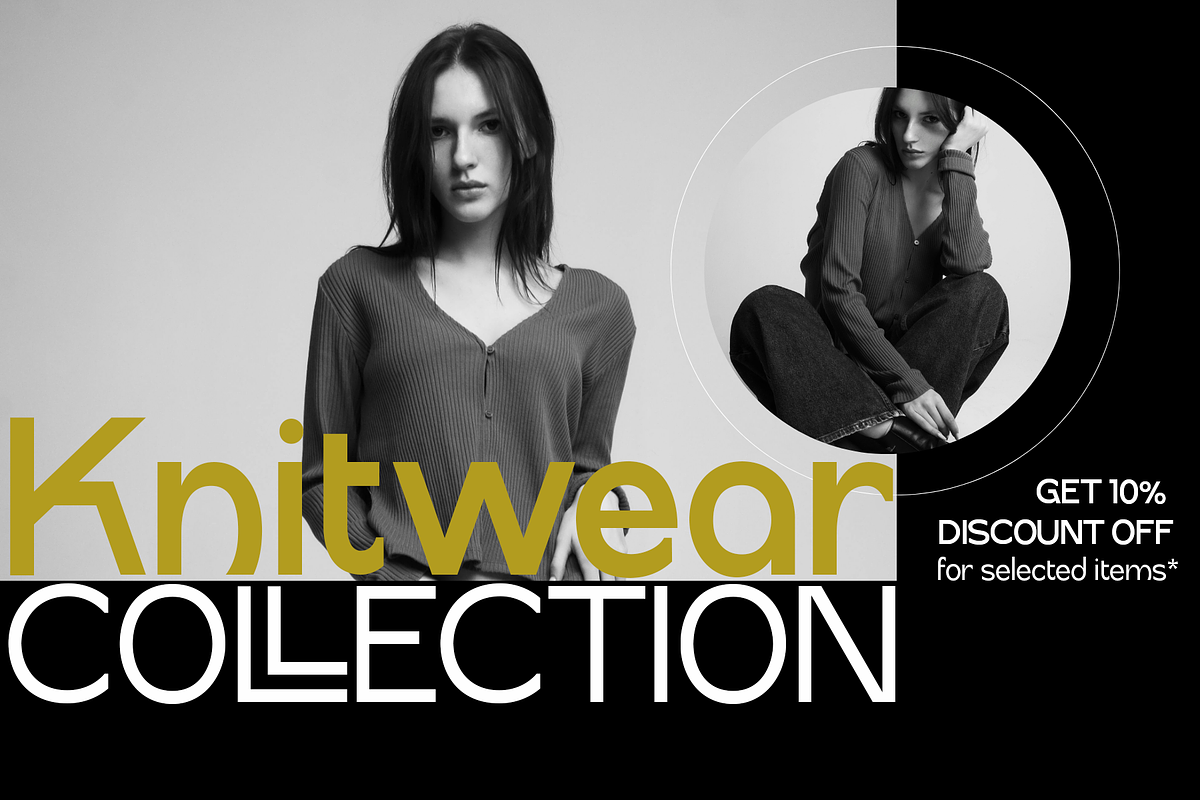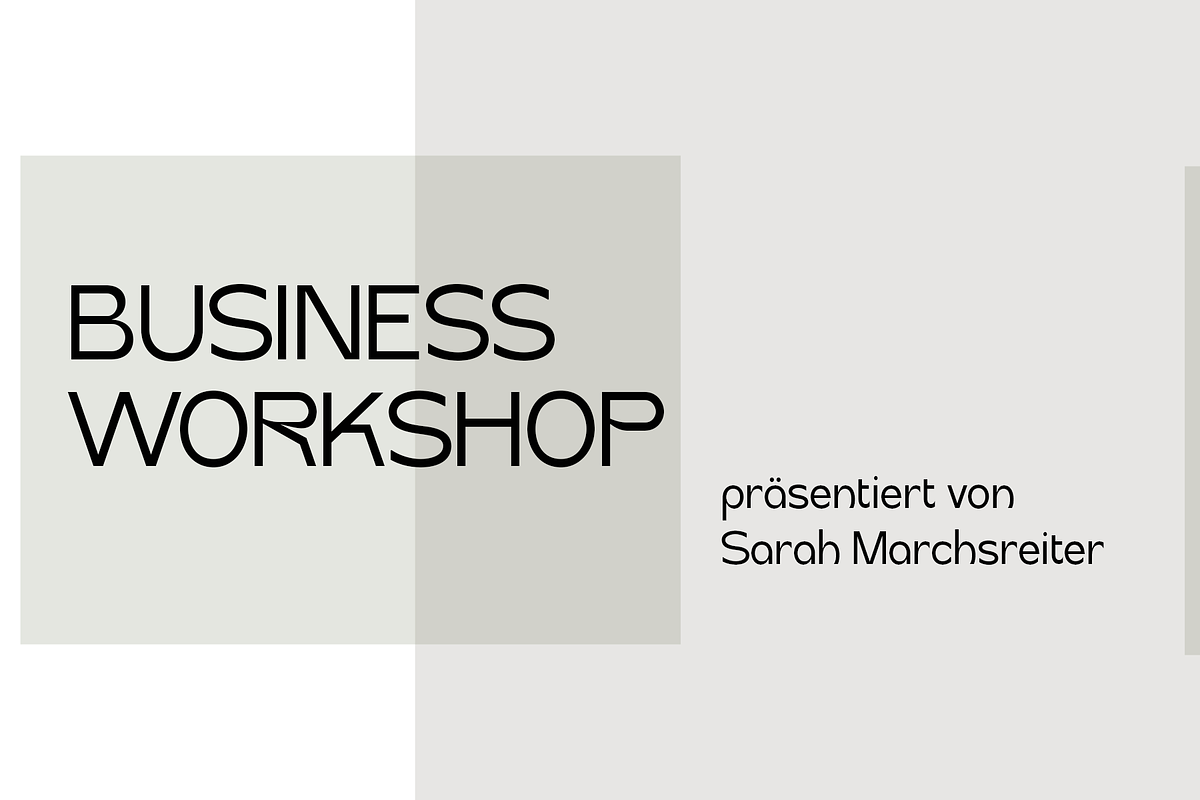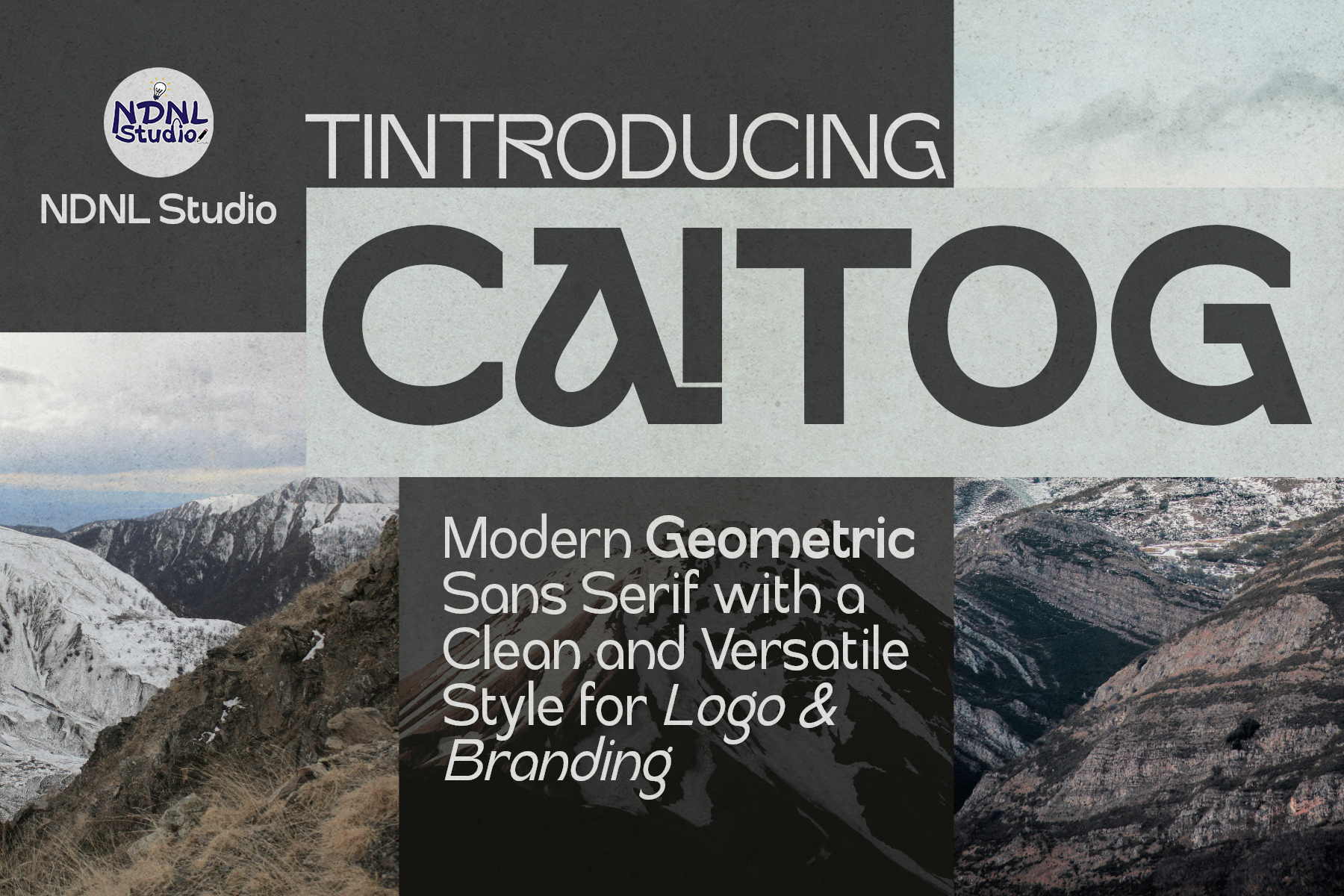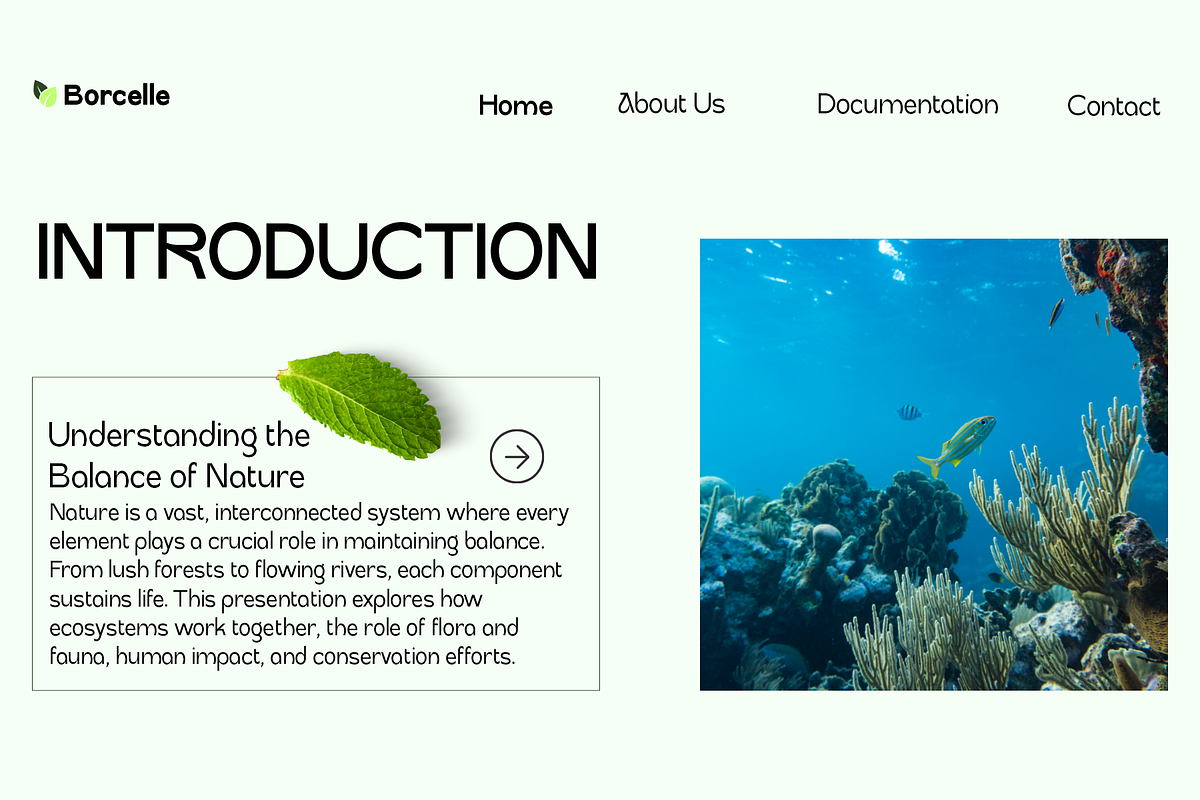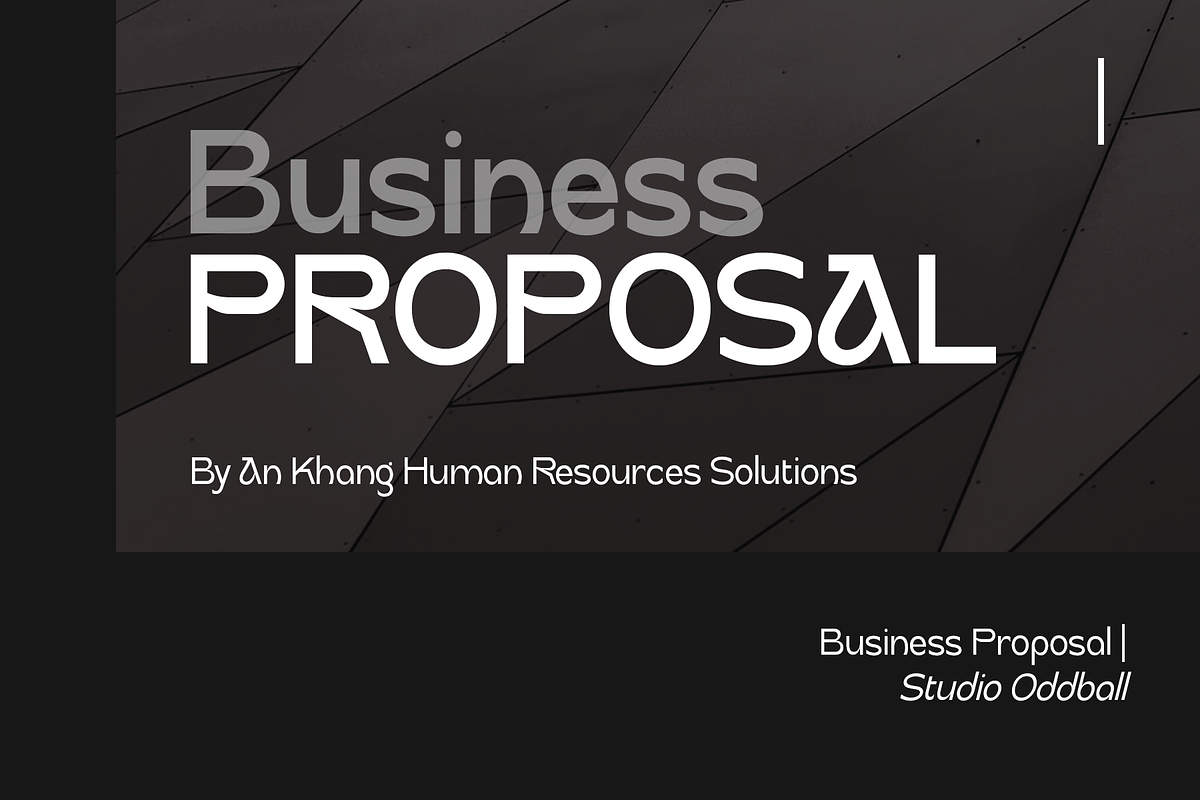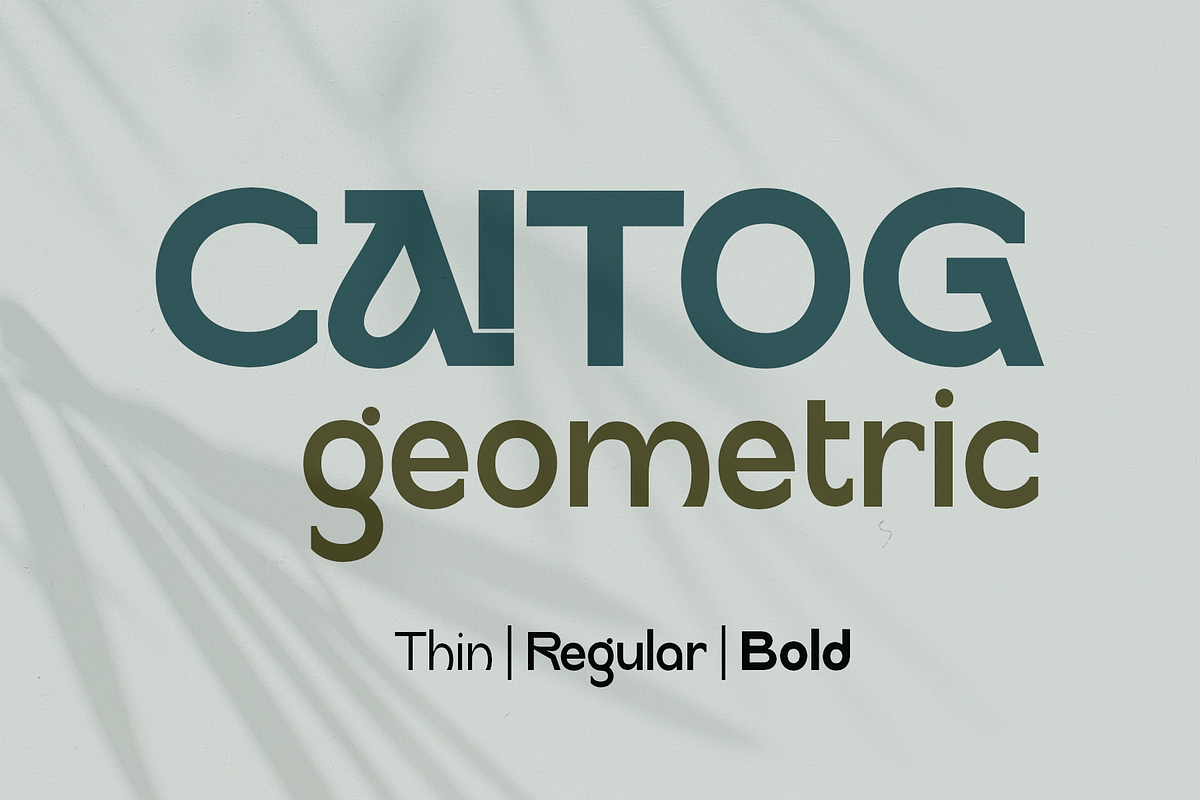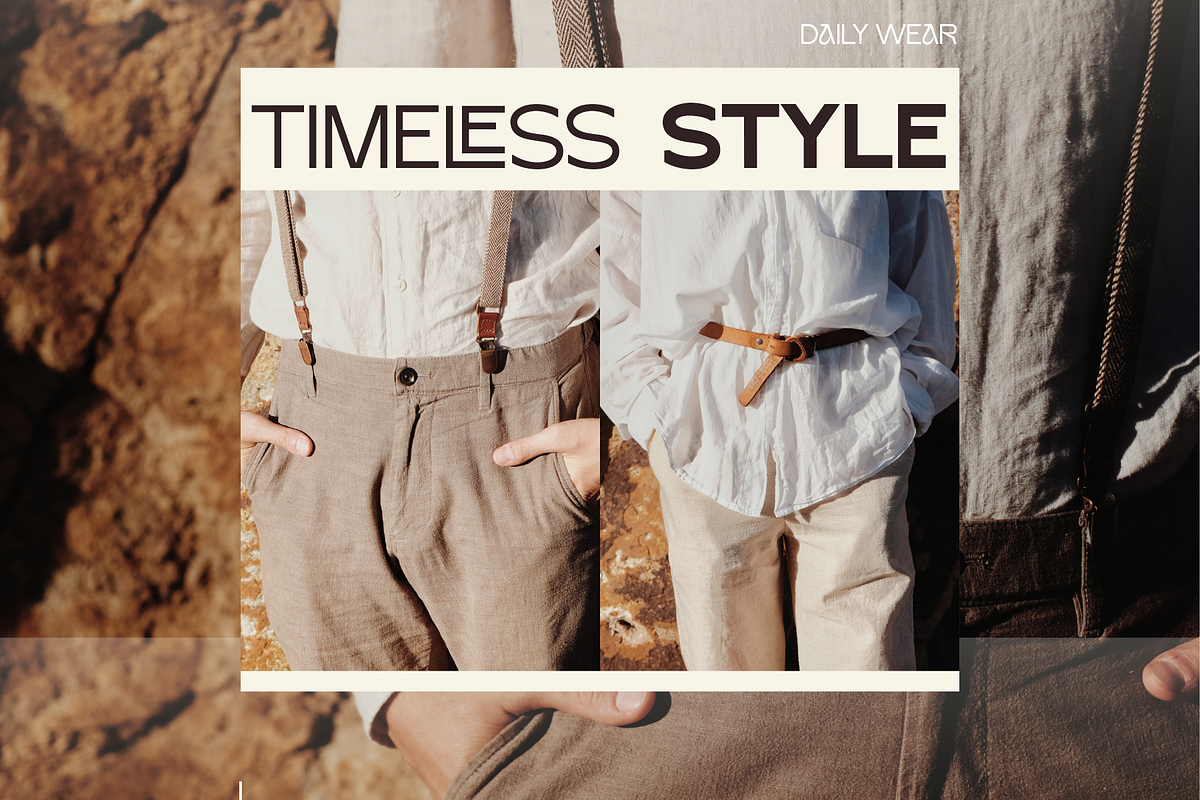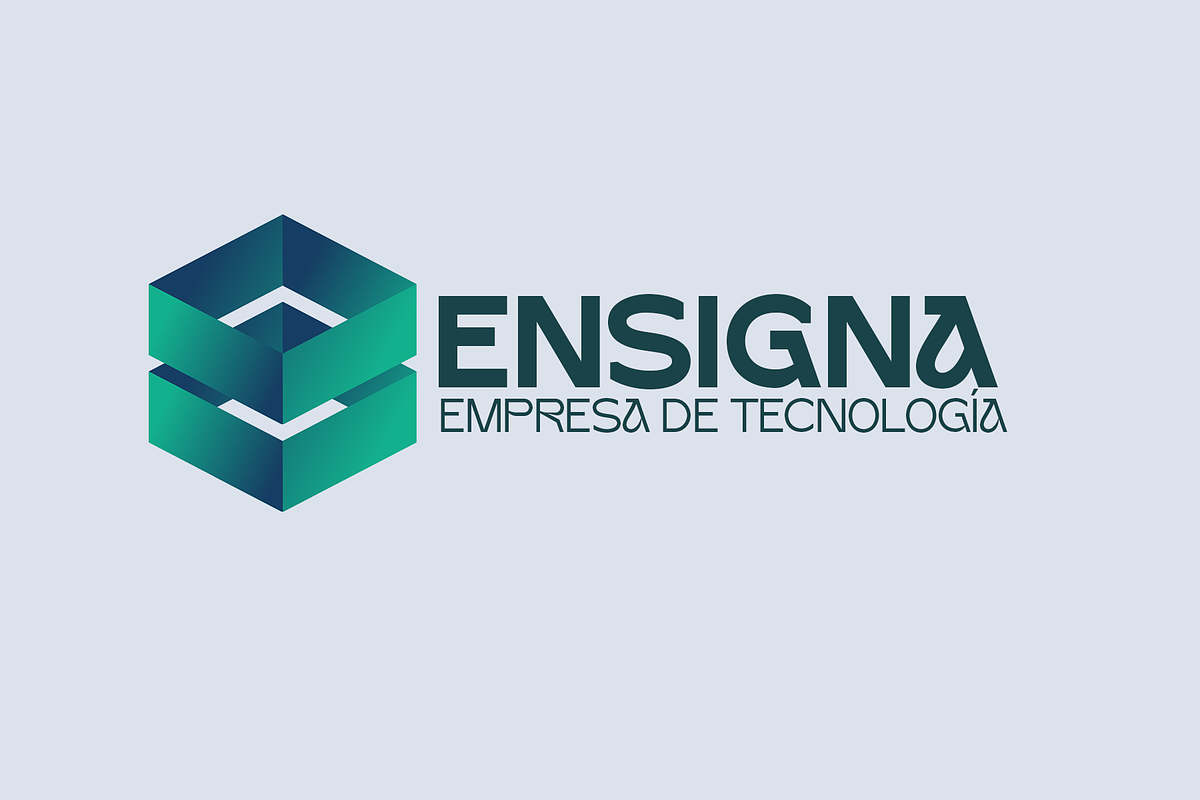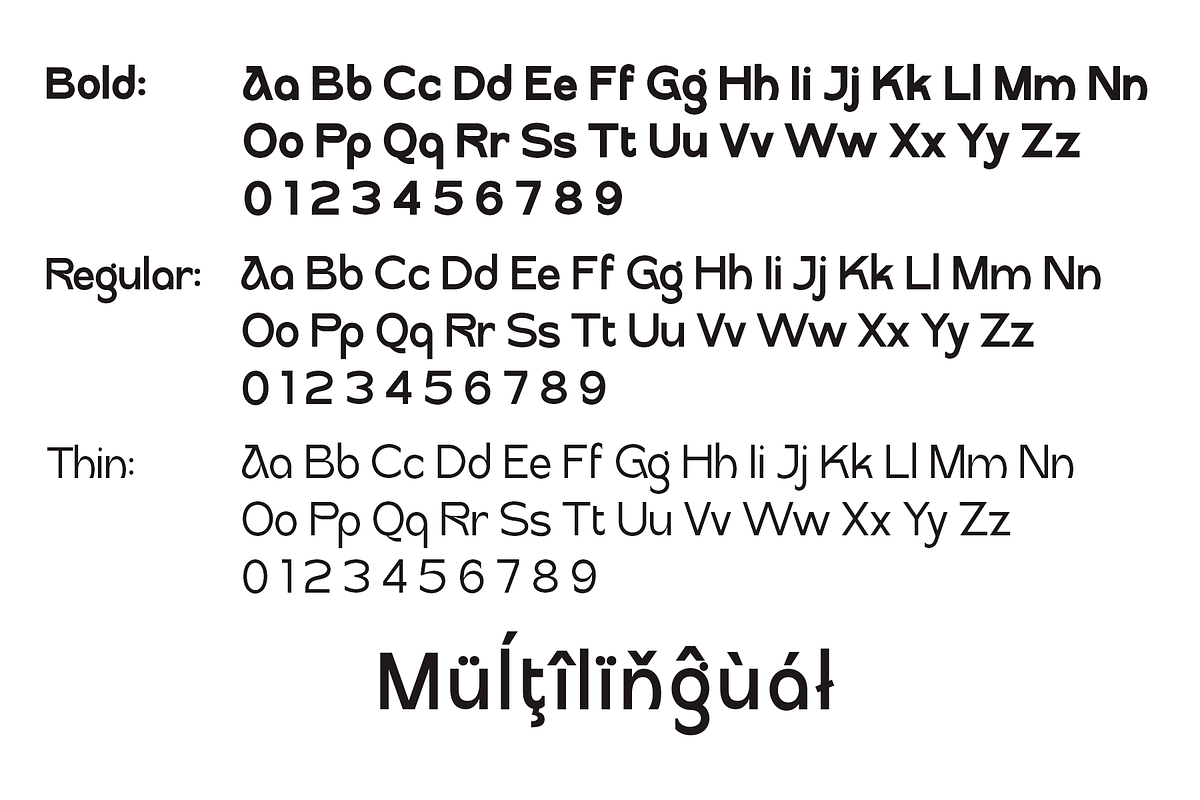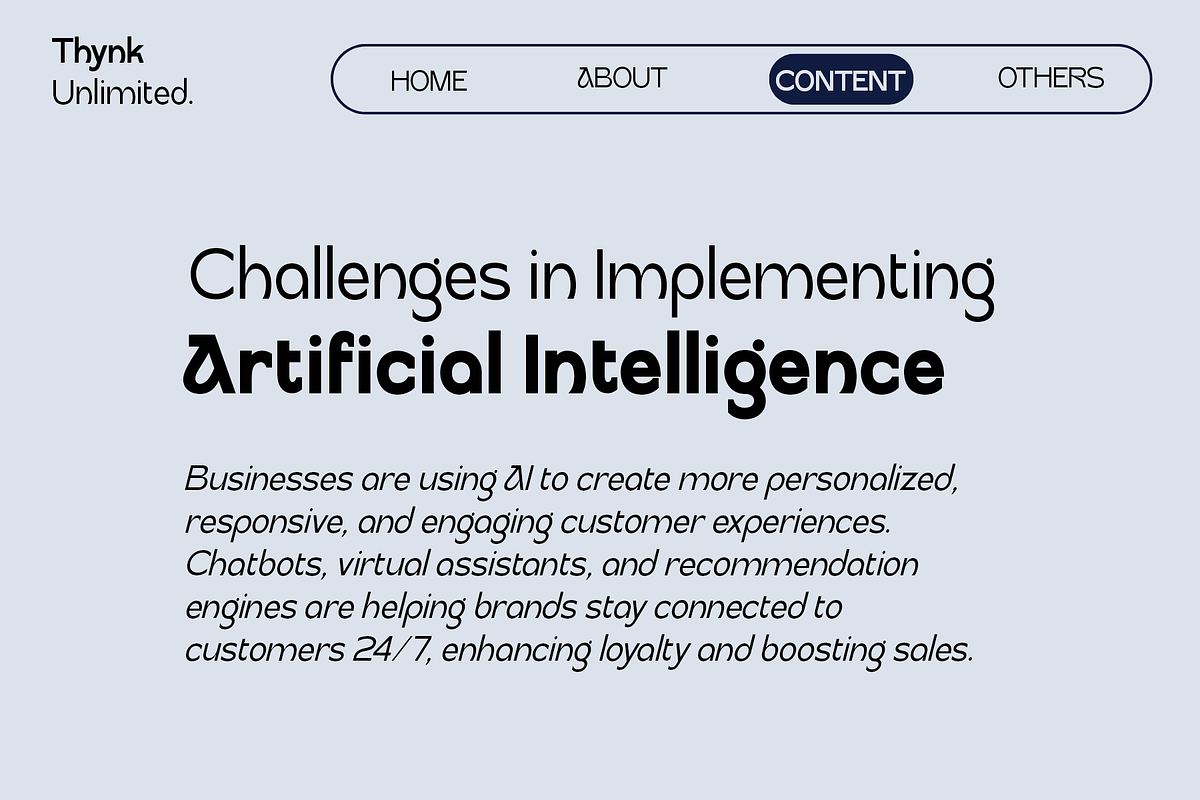
Caitog – Sans Font Family
Caitog is a modern geometric sans serif typeface designed to achieve the perfect balance between minimalism, clarity, and professional aesthetics. Featuring clean lines, strong structures, and harmonious proportions, Caitog delivers a contemporary and refined look for a wide range of creative projects.
Crafted for versatility, Caitog is ideal for logos, branding identities, headlines, packaging, editorial layouts, websites, and advertising materials. Its flexible design adapts seamlessly to luxury brands, technology companies, fashion projects, and modern business applications.
Whether used in large display settings or smaller text applications, Caitog maintains excellent readability while creating a bold and memorable visual impact, making it a reliable choice for designers seeking a clean and sophisticated typographic solution.